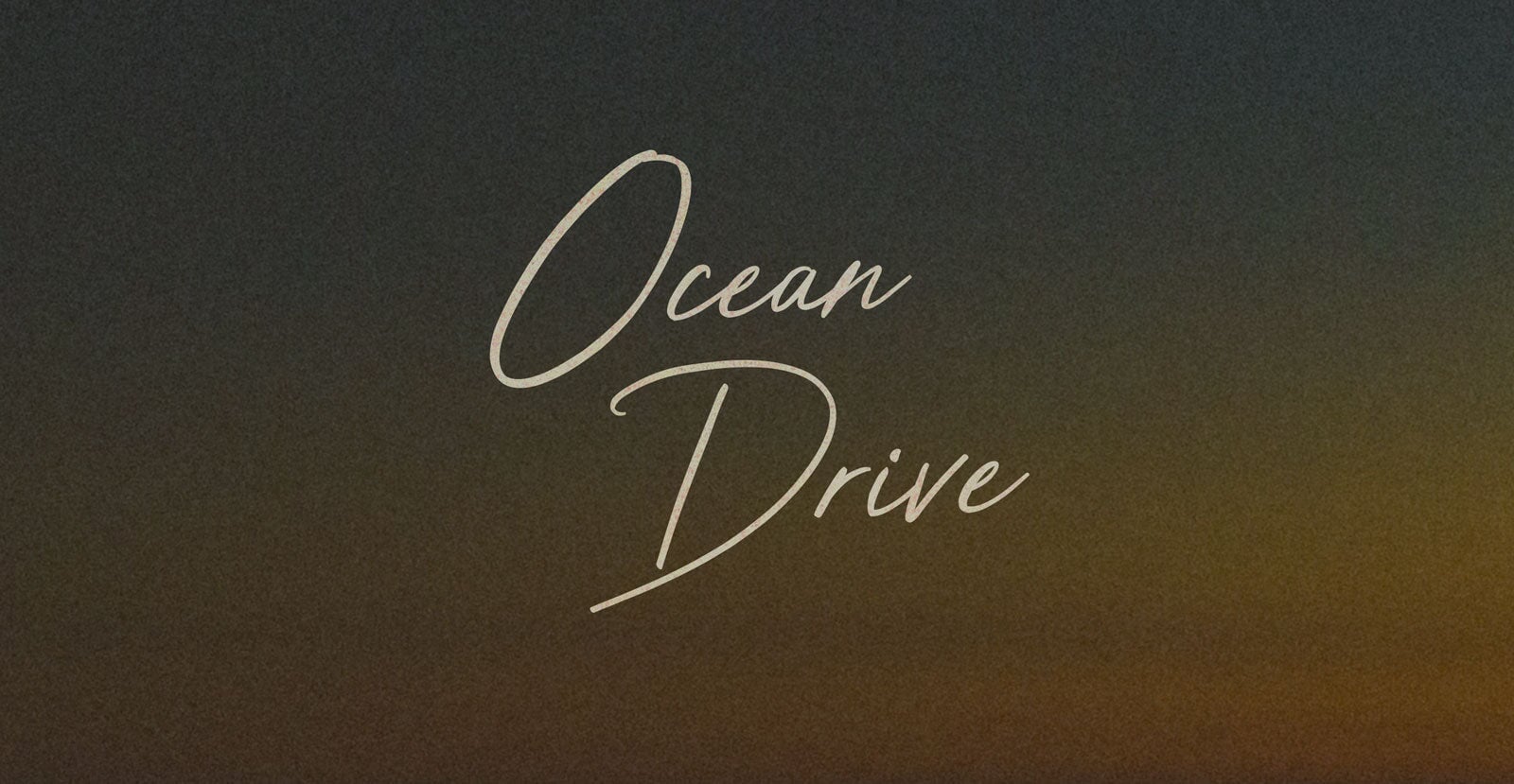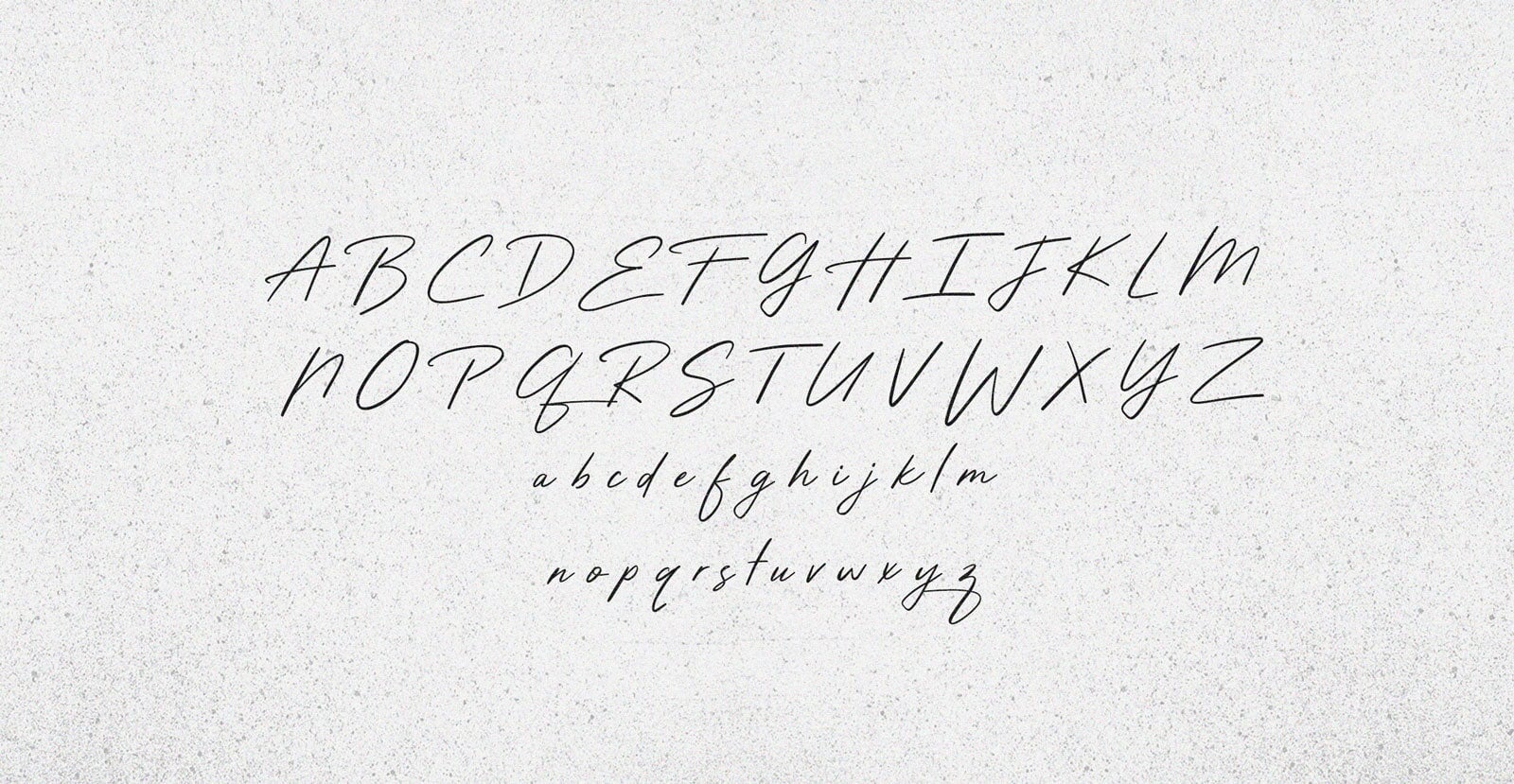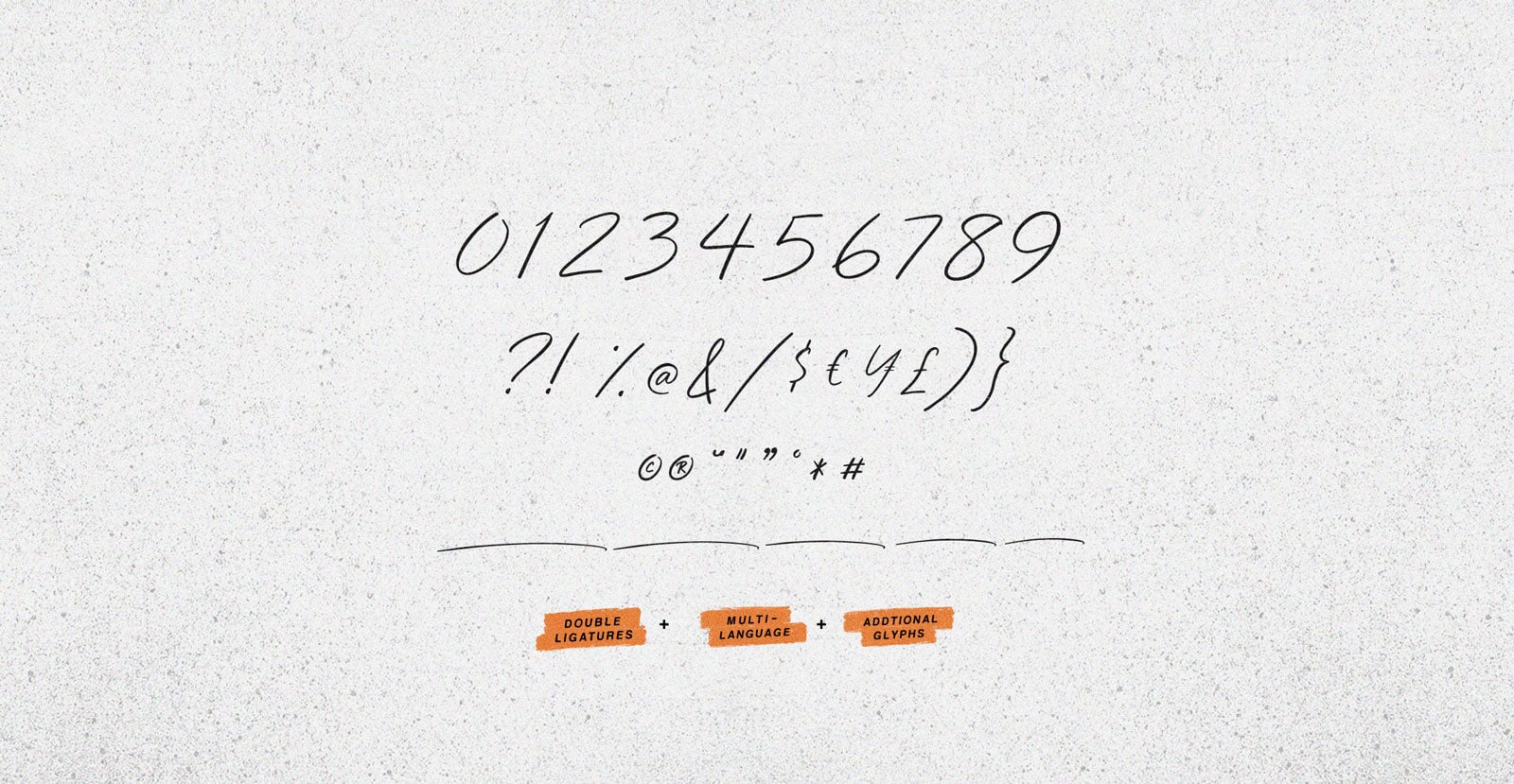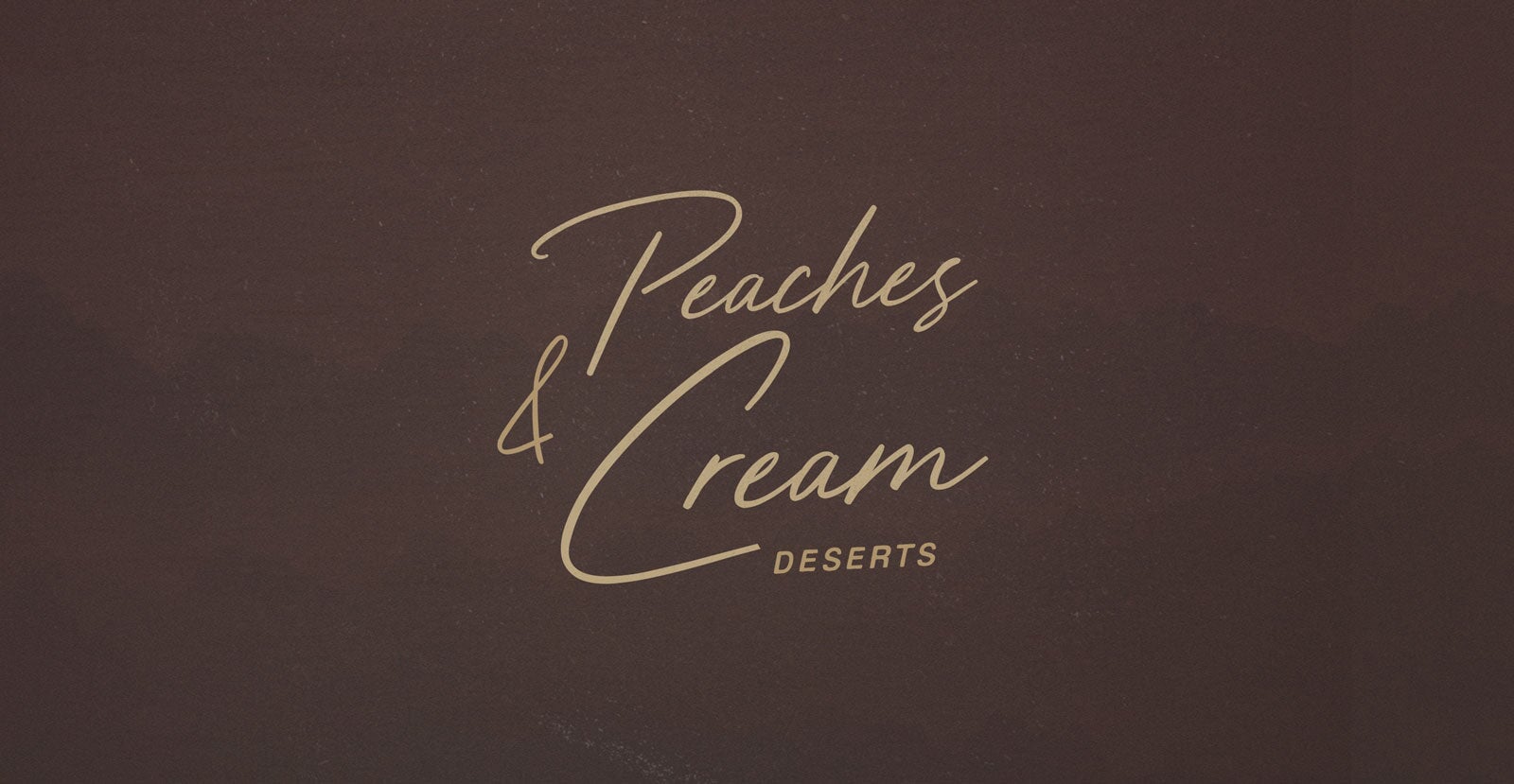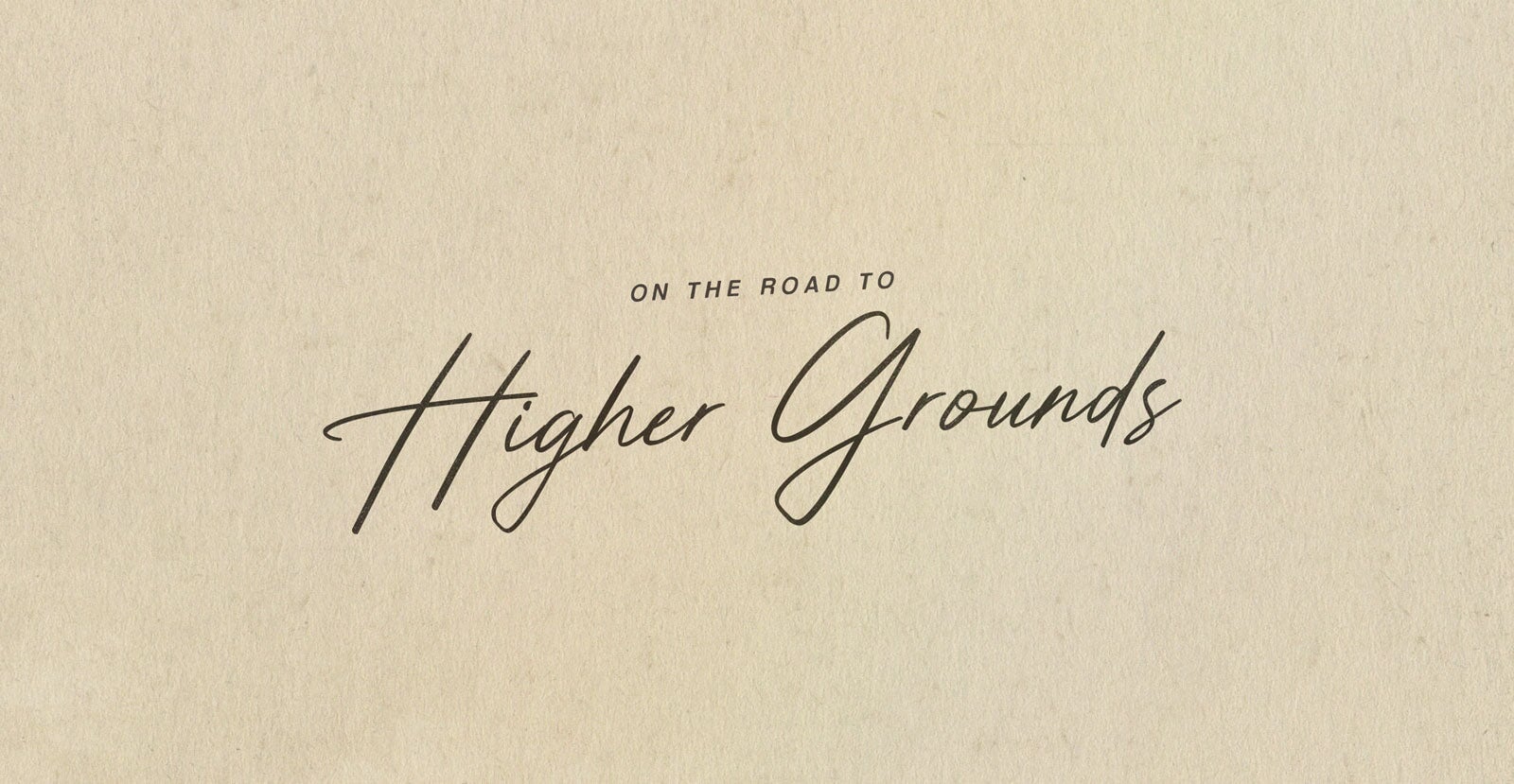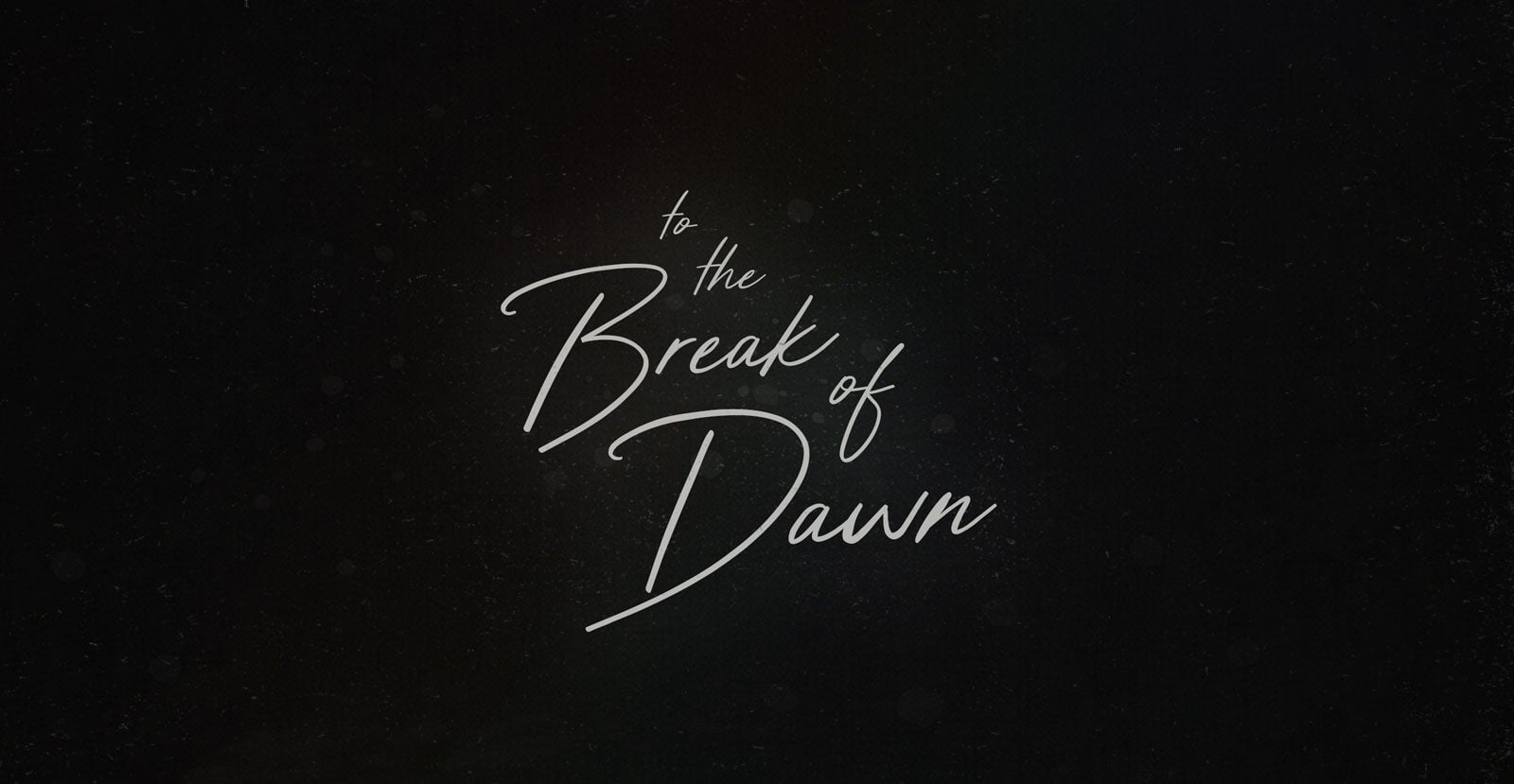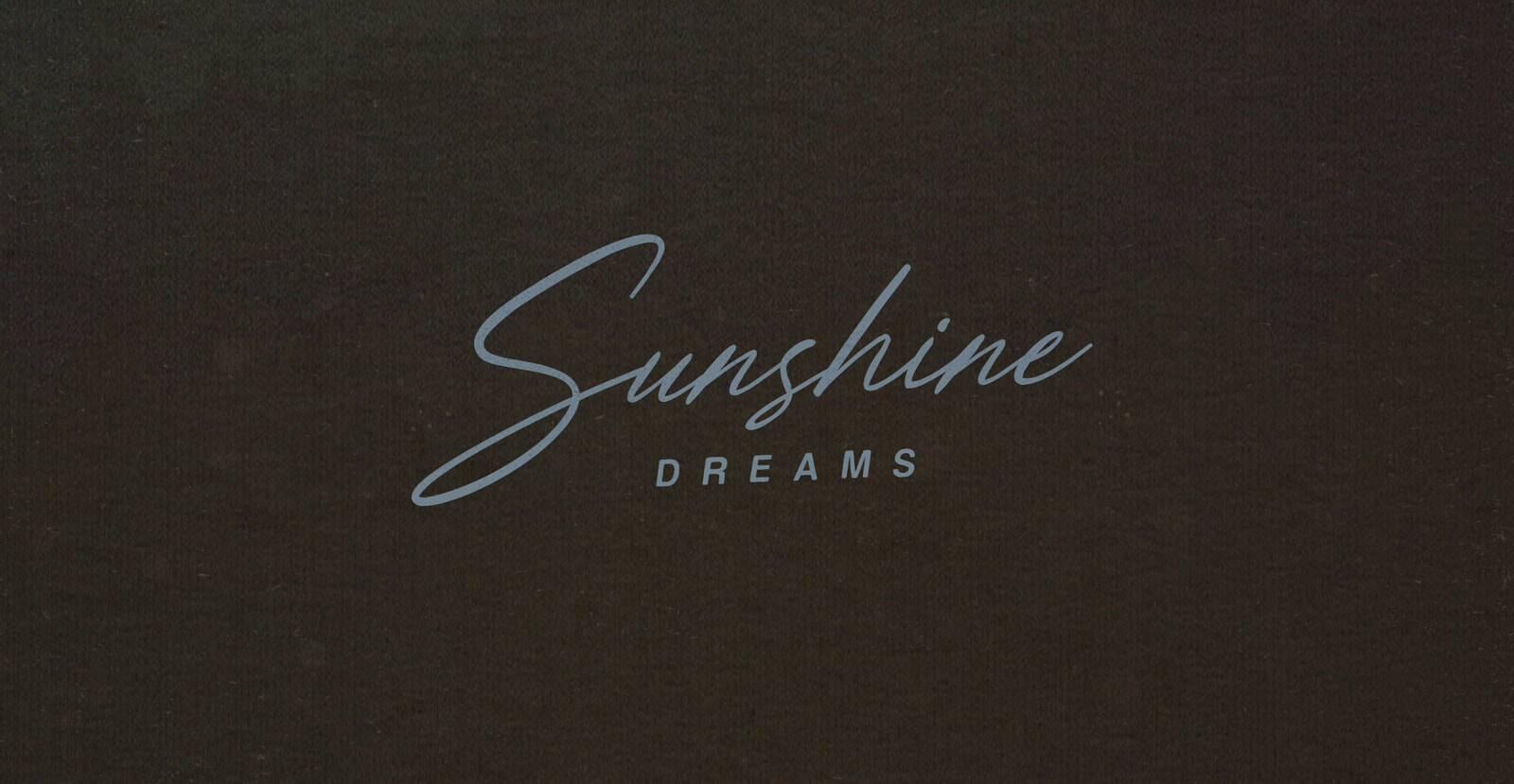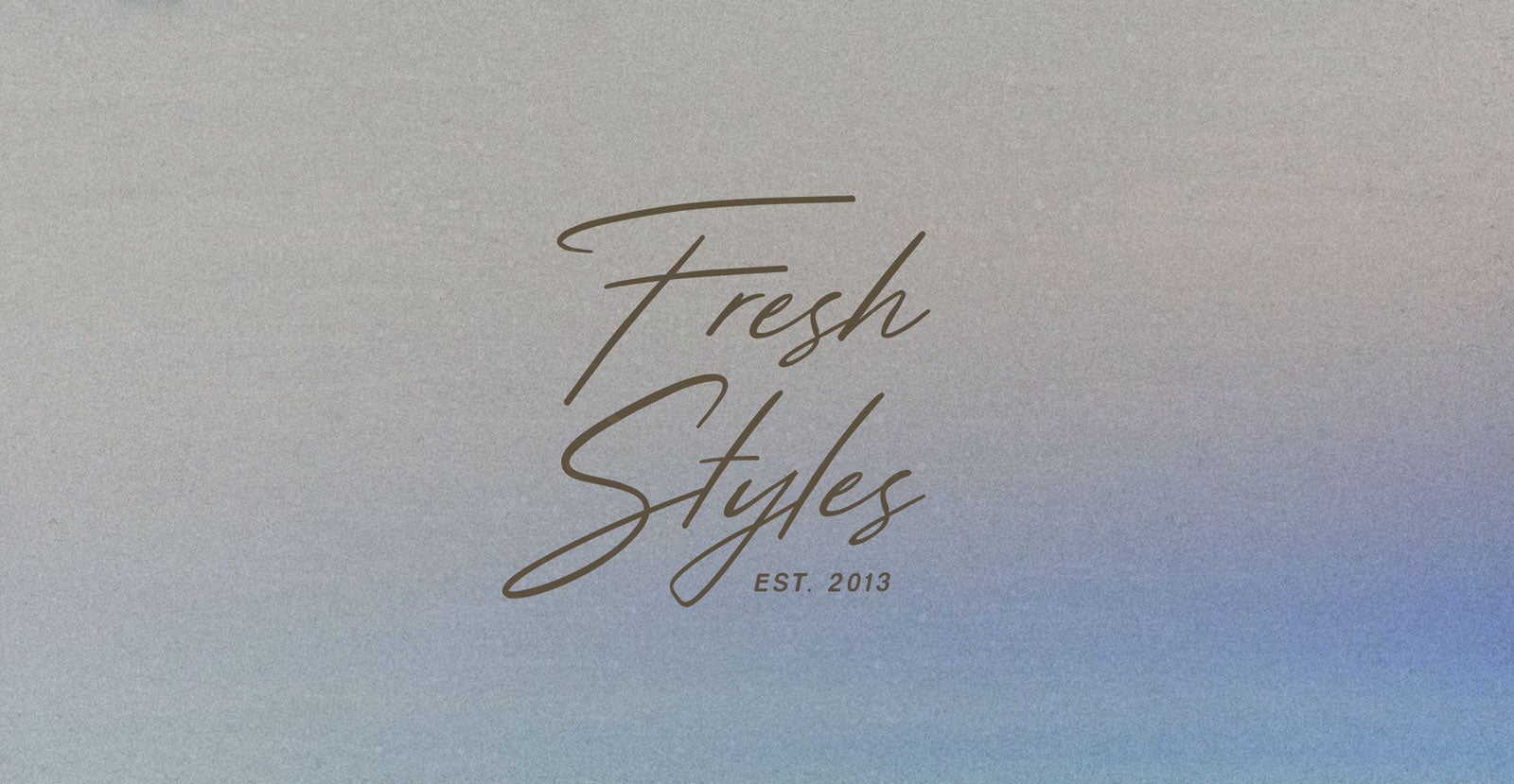
Ocean Drive
Ocean Drive moves like a memory in motion. Warm air, open roads, and a pulse that doesn’t rush. It carries the rhythm of distance and the ease of now, blurring the line between escape and arrival.